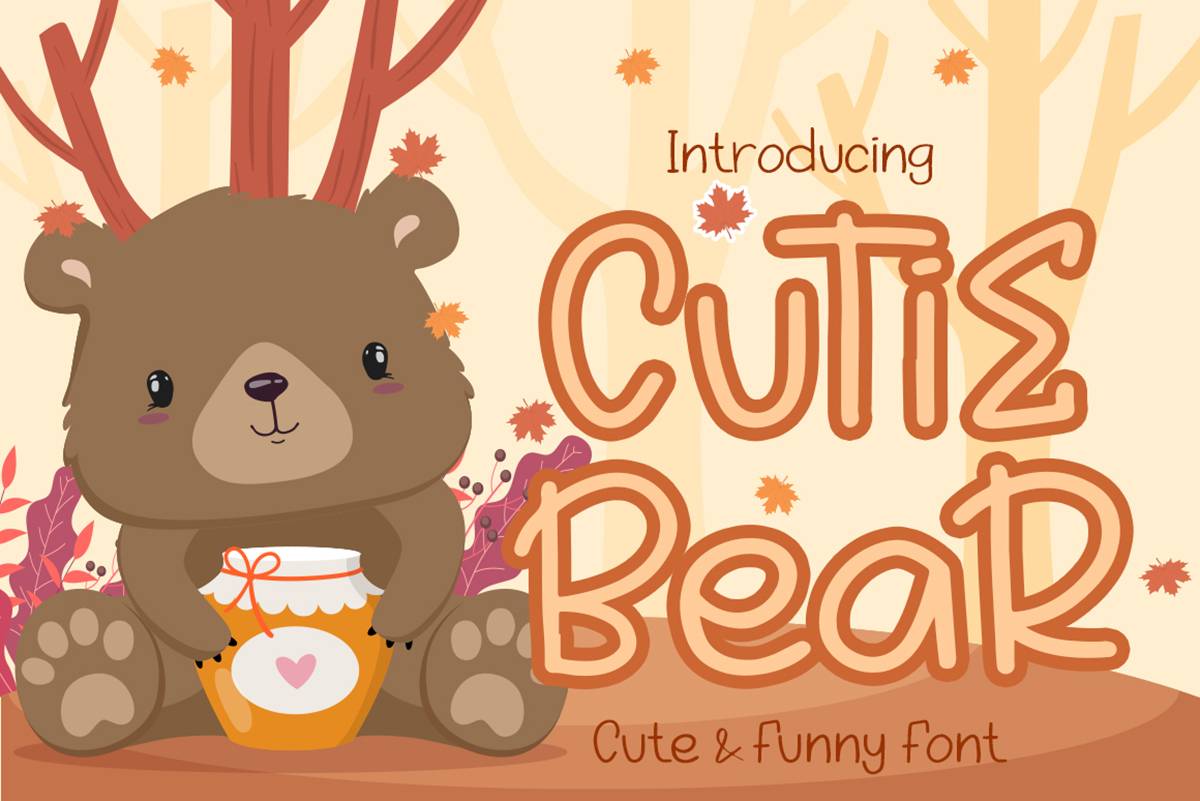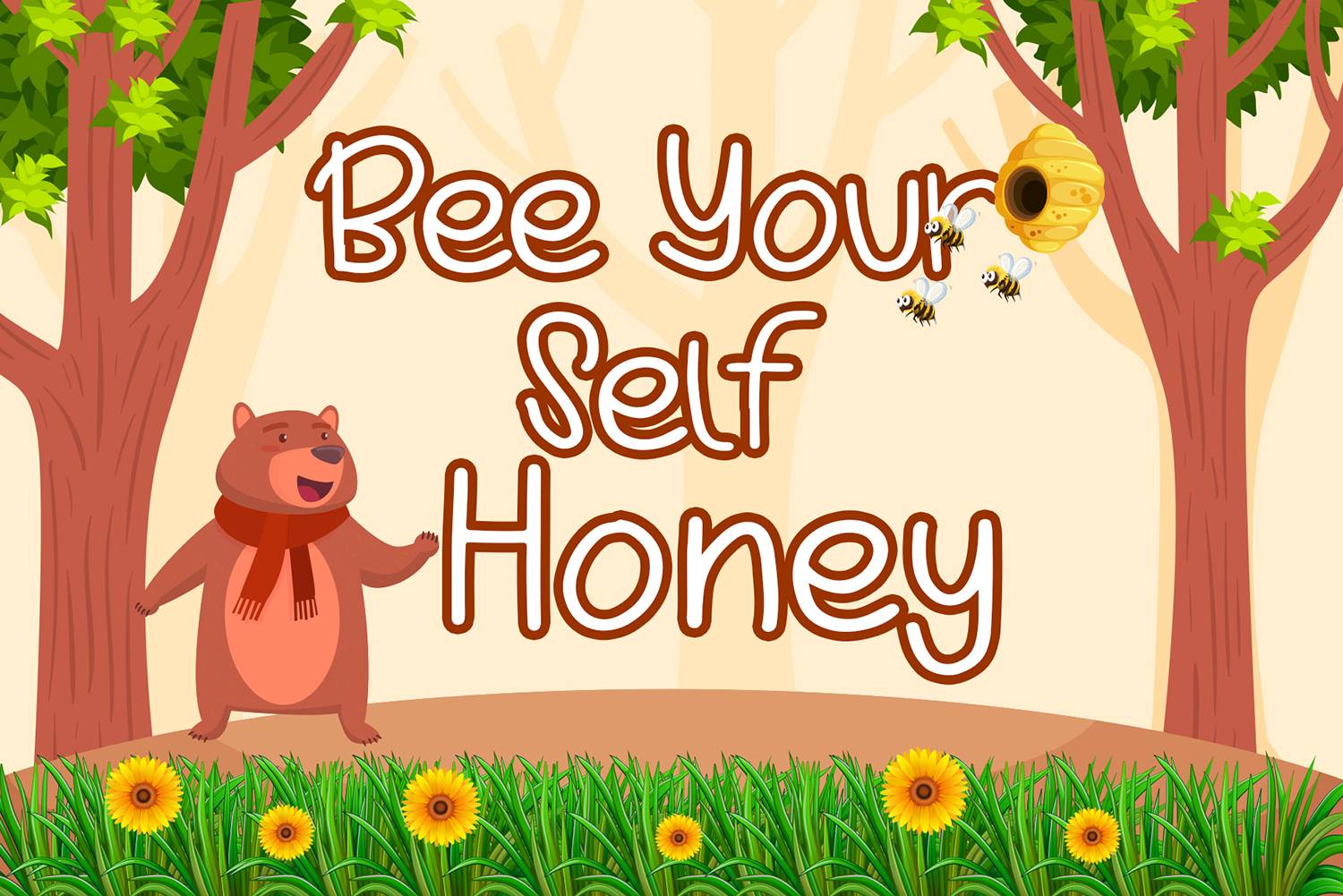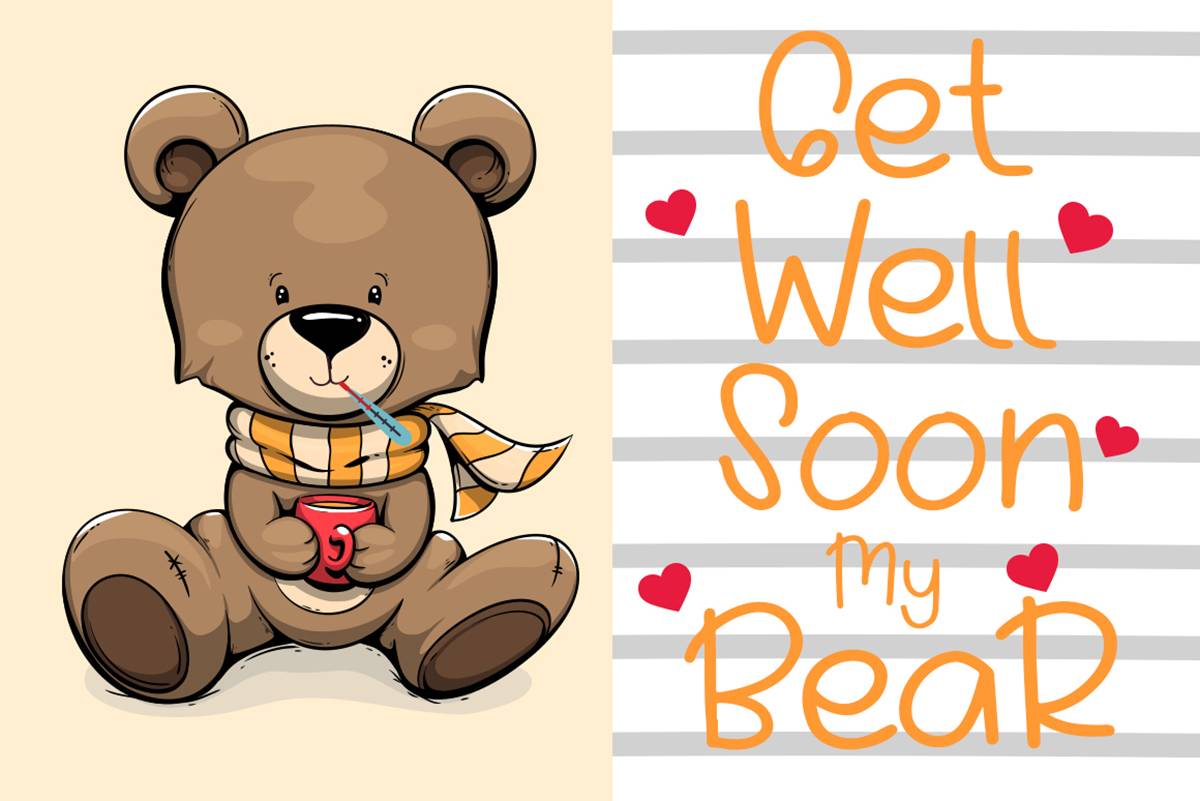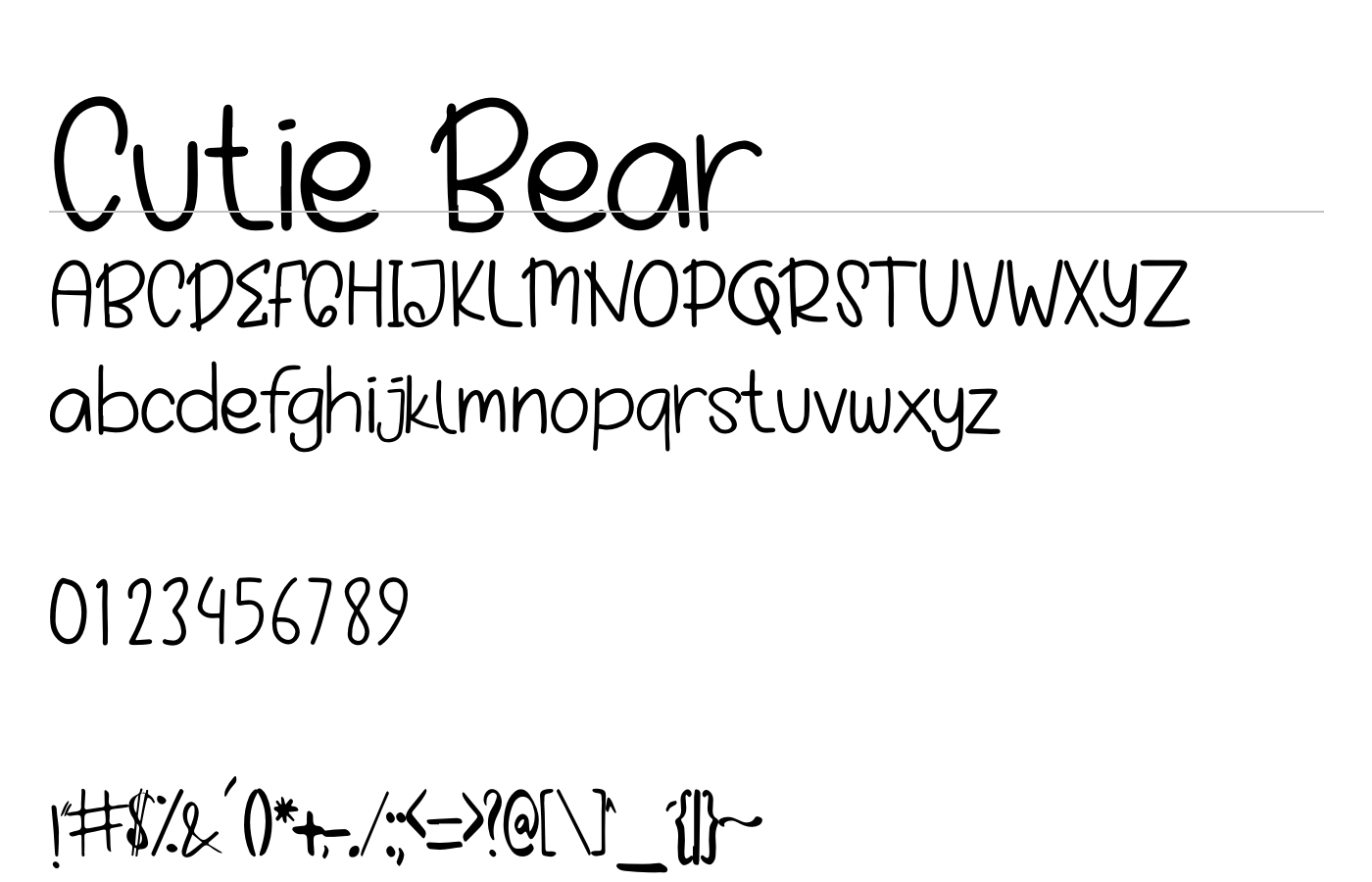
Cutie Bear is a playful, handwritten sans serif font with a light weight and tall, narrow letterforms that give it a charming, casual feel. Its irregular strokes and quirky details make it perfect for fun, friendly designs like children’s books, greeting cards, and informal branding. This font brings warmth and personality to projects that need an approachable and whimsical touch.
Cutie Bear Font
About Cutie Bear Font
| Font family | Cutie Bear Font |
| Release date | 2020-10-08 |
| Designer | Fajar Wicaksono |
| Trademark | Booga Letter |